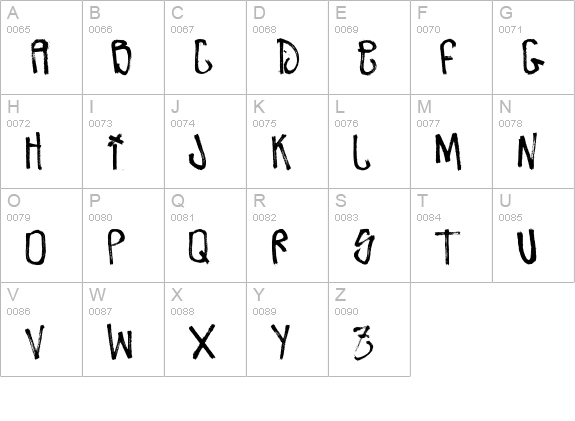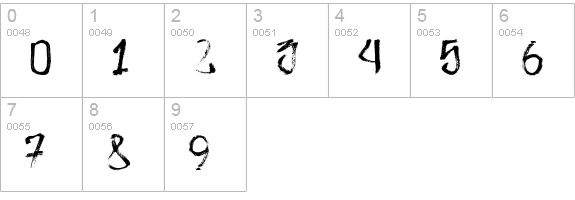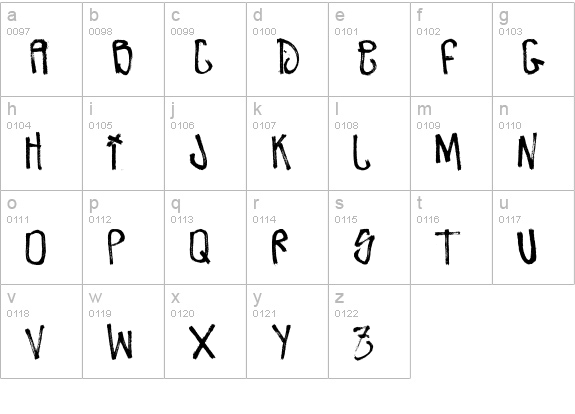
Zdarx Hardcore Font Details
Zdarx Hardcore font is a bold and edgy typeface that exudes strength and modernity. Its sharp, angular lines give it a hardcore and rebellious look, perfect for making a statement in your designs. This font is ideal for projects that require a bold and impactful typography choice, such as posters, album covers, and branding materials. The Zdarx Hardcore font is not only visually striking but also versatile, making it suitable for a wide range of design projects. Whether you want to add a touch of attitude to your designs or convey a sense of power and intensity, this font has got you covered. Best of all, Zdarx Hardcore font is available for free download at FontsMarket.com, making it accessible to everyone who wants to add a bold and unique touch to their designs. Don't miss out on this opportunity to enhance your projects with this striking and dynamic font!